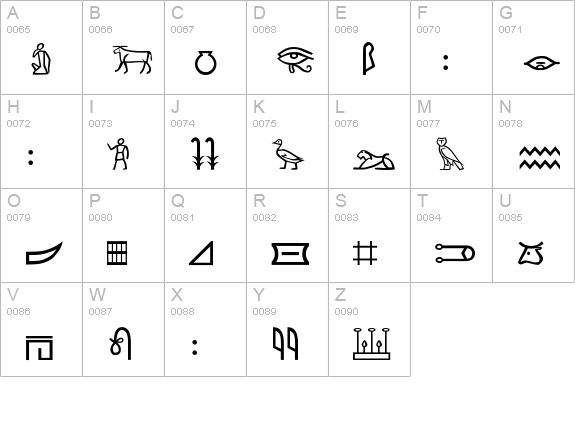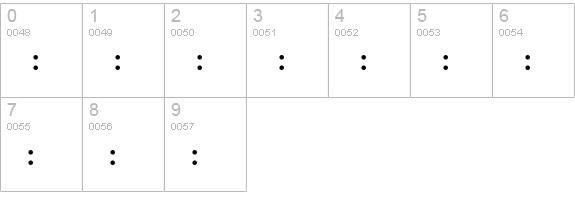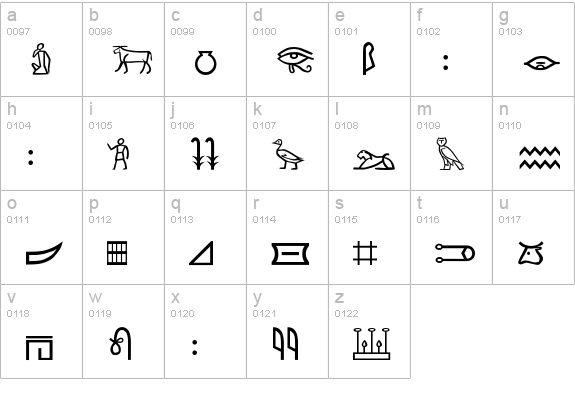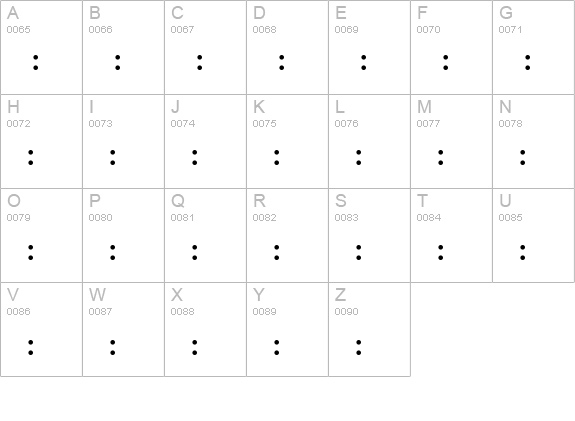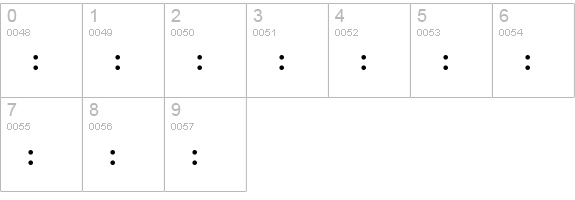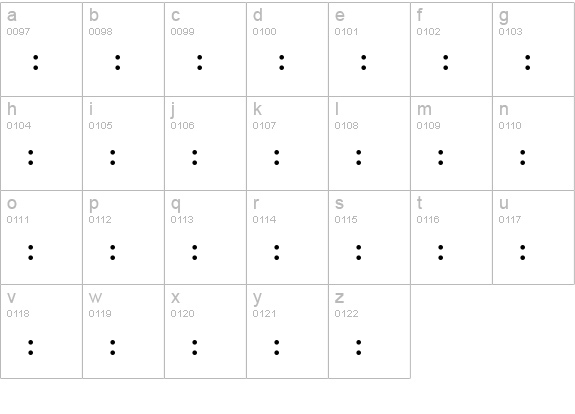
Meroitic - Hieroglyphics Font Details
The Meroitic - Hieroglyphics font is a unique and captivating typeface that beautifully captures the essence of ancient Meroitic script and Egyptian hieroglyphics. With its intricate symbols and ornate design, this font is perfect for adding a touch of mystique and historical flair to your projects. Not only does the Meroitic - Hieroglyphics font exude an air of ancient wisdom and elegance, but it is also incredibly versatile and can be used in a variety of creative ways. Whether you're designing a poster, creating a logo, or crafting a piece of digital art, this font is sure to make a bold statement. Best of all, the Meroitic - Hieroglyphics font is available for free download at FontsMarket.com. So why wait? Add a touch of ancient charm to your designs today with this stunning font.